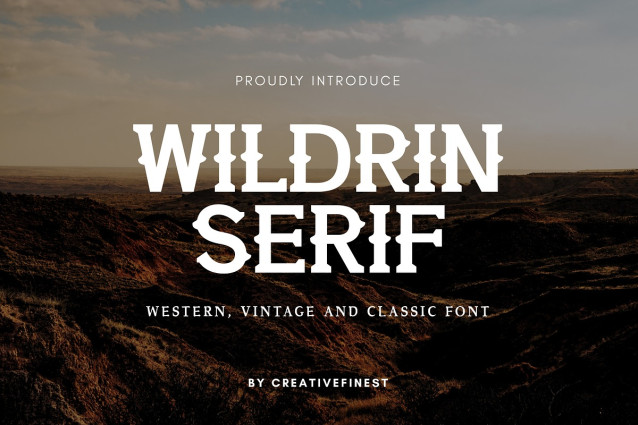
Wildrin Serif Font
Wildrin Serif brings bold Western spirit and vintage elegance to every project. Inspired by the wild frontier, this font features strong, standout letterforms perfect for making a statement.